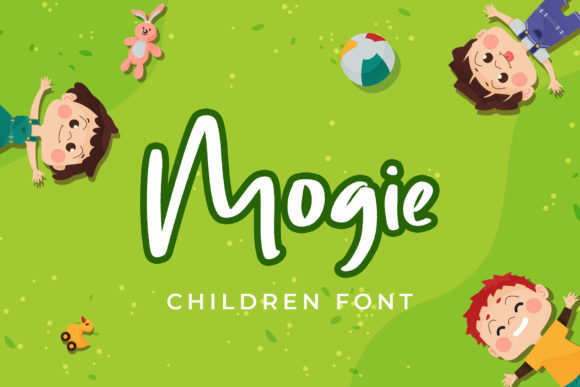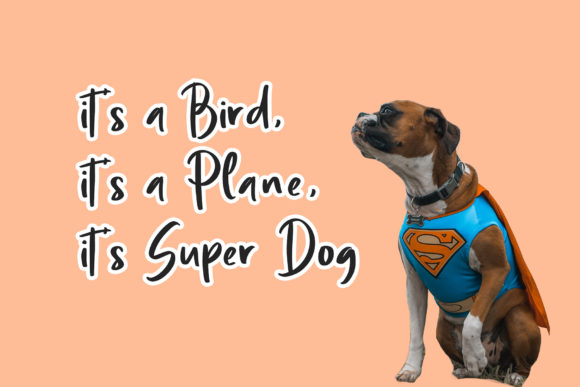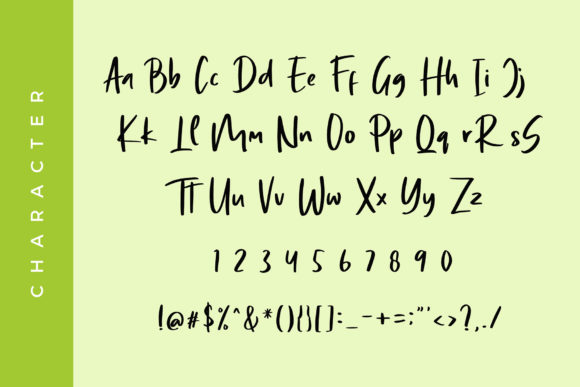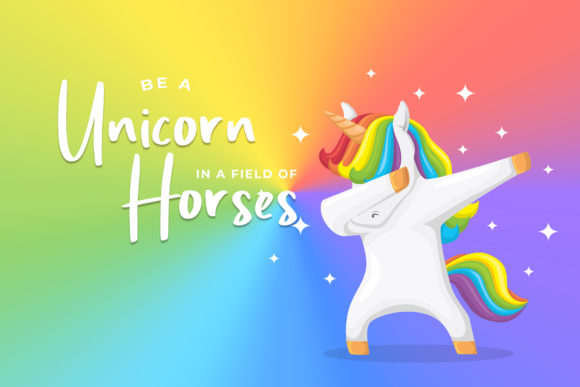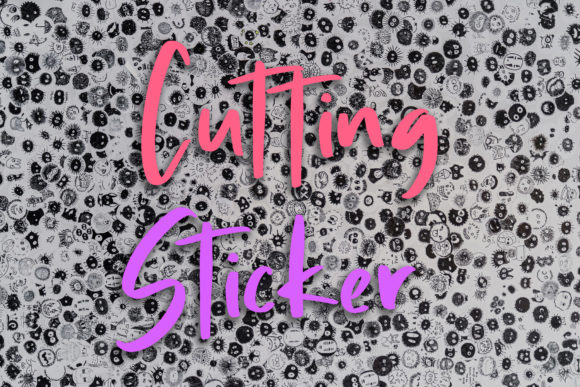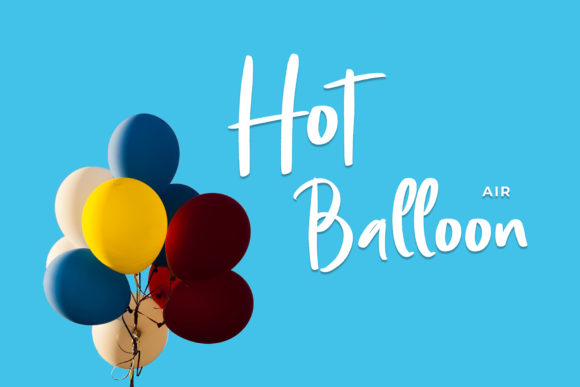
Mogie Font
About Mogie Font
Mogie is a cute and quirky handwritten font. It will add an incredibly joyful touch to your designs. Add this beautiful font to each of your creative ideas and notice how it makes them stand out!